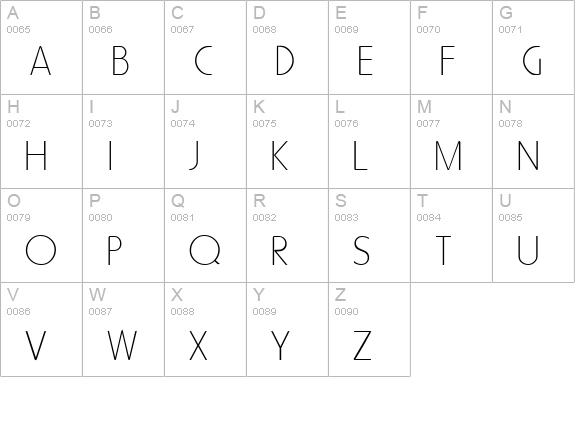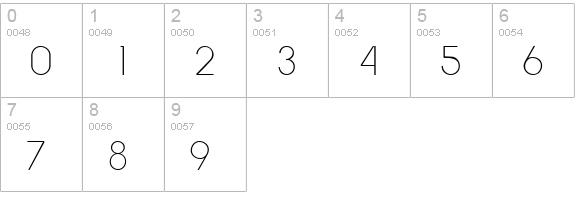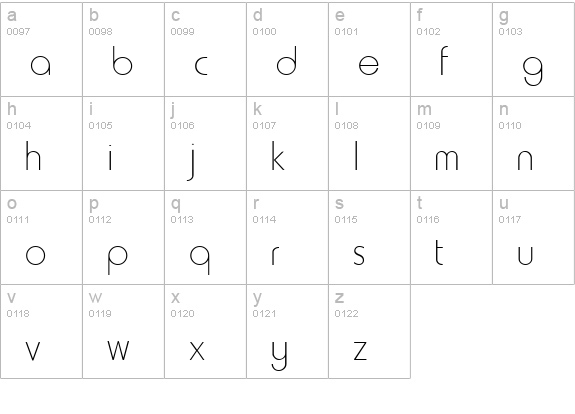
QTHowardType Regular is the standard, neutral variant in the QTHowardType typeface family \xE2\x80\x94 well suited to general body text, paragraphs, and standard typographic work.
QTHowardType Regular font is a timeless and versatile typeface that is perfect for any design project. With its clean lines and balanced proportions, this font exudes a sense of professionalism and elegance. It is the ideal choice for headlines, logos, branding materials, and more. This font offers a wide range of characters, including uppercase letters, lowercase letters, numerals, and punctuation marks, allowing you to express your creativity and convey your message effectively. The clean and legible design ensures that your text remains easy to read, even at small sizes. One of the best things about QTHowardType Regular font is that it is freely available to download at FontsMarket.com. This means that you can instantly enhance your design projects without any additional cost. Whether you are a professional designer or a hobbyist, this font is a valuable addition to your collection. Not only does QTHowardType Regular font offer aesthetic appeal, but it also provides functional benefits. Its versatility allows it to seamlessly blend with various design styles and themes. Whether you are working on a modern, minimalist design or a more traditional and ornate project, this font will effortlessly adapt to your needs. Furthermore, QTHowardType Regular font is highly compatible with different software and platforms, making it incredibly convenient to use. It is easily accessible on both Mac and PC, ensuring that you can incorporate it into your design workflow without any hassle. Overall, QTHowardType Regular font is a must-have for designers who value both style and functionality. Its clean and balanced design, along with its versatility and compatibility, make it a valuable asset for any design project. Download this font for free at FontsMarket.com and elevate your designs to a whole new level.